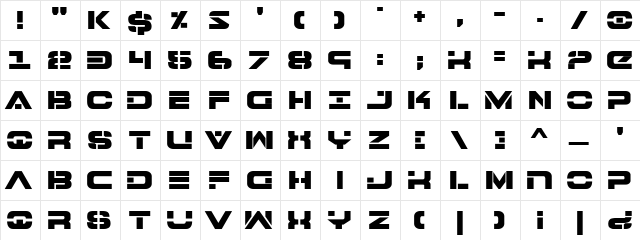
7th Service ExtraBold ExtraBold
Design Context for 7th Service ExtraBold Typeface
7th Service ExtraBold is a composed and adaptable typeface that performs quietly and consistently across a wide range of design contexts. The heavy weight commands attention and anchors typographic hierarchies.
Pro Tip: Use 7th Service ExtraBold in both headline and body roles to test its range before committing to a single application.